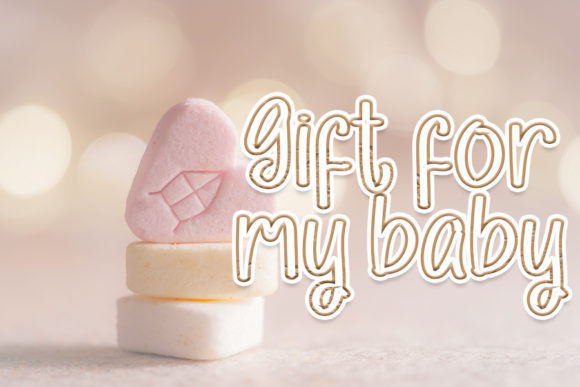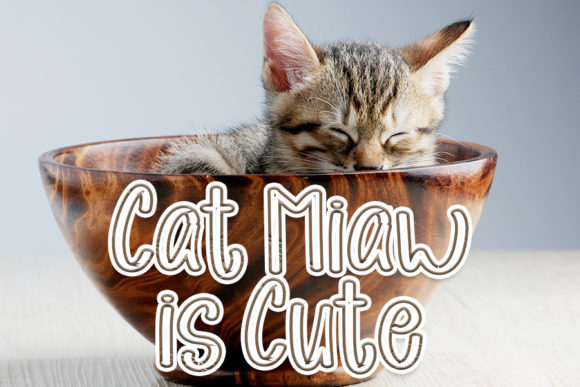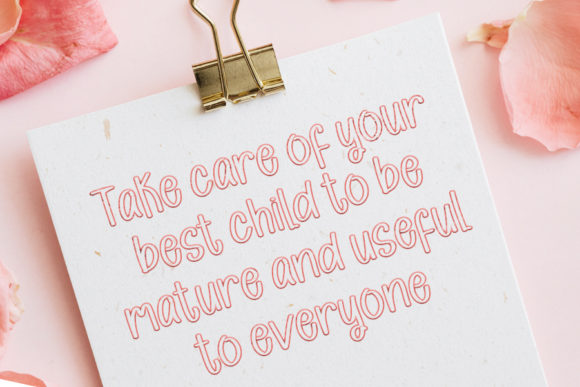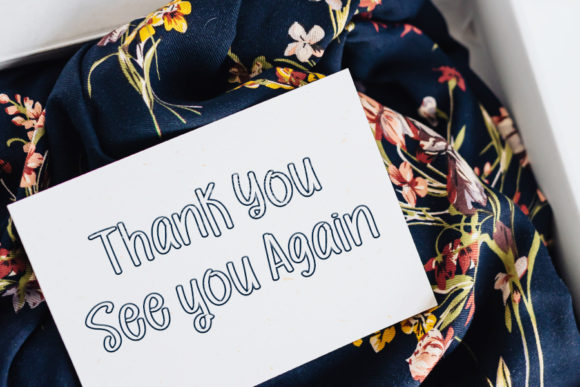
Introducing Happy Panda Font: The Perfect Blend of Whimsy and Relaxation
Are you a designer, crafter, or DIY enthusiast looking for a font that can add a touch of personality to your projects? Look no further than Happy Panda Font, a beautiful and relaxed handwritten font that’s perfect for a variety of designs. With its casual and whimsical vibe, Happy Panda is sure to bring your creative ideas to life!
The Characteristics of Happy Panda Font
Happy Panda Font is a unique and charming handwritten font that’s designed to evoke a sense of relaxation and playfulness. Its casual, laid-back style makes it perfect for projects that require a friendly and approachable tone. The font’s whimsical nature also makes it ideal for designs that need a touch of personality and flair.
One of the standout features of Happy Panda Font is its versatility. Whether you’re working on a DIY craft project, a branding campaign, or a social media graphic, this font is sure to fit right in. Its relaxed and informal style makes it perfect for designs that need to feel approachable and down-to-earth.
Uses for Happy Panda Font
• DIY Crafts: Add a personal touch to your DIY craft projects, such as handmade cards, gift tags, and scrapbook pages.
• Branding: Use Happy Panda Font to create a friendly and approachable brand identity for your business or product.
• Social Media Graphics: Add a touch of personality to your social media graphics, such as Instagram posts, Facebook headers, and Twitter graphics.
• Stationery: Create custom stationery, such as notebooks, journals, and stickers, with a personal and playful touch.
• Web Design: Use Happy Panda Font to add a touch of whimsy and personality to your website or blog.
Why Choose Happy Panda Font?
• Unique and Eye-Catching: Happy Panda Font is a one-of-a-kind font that’s sure to grab attention and stand out from the crowd.
• Easy to Read: Despite its playful nature, Happy Panda Font is easy to read and understand, making it perfect for designs that need to communicate a message.
• Versatile: Happy Panda Font can be used for a wide range of projects, from DIY crafts to web design.
• High-Quality: Happy Panda Font is a high-quality font that’s designed to look great in any context.
Tips for Using Happy Panda Font
• Use it with Color: Happy Panda Font looks great with bright, bold colors. Try pairing it with a fun and playful color scheme to really make your design pop.
• Experiment with Sizes: Happy Panda Font looks great in a variety of sizes. Experiment with different font sizes to find the one that works best for your design.
• Pair it with Other Fonts: Happy Panda Font pairs well with other fonts, such as sans-serif fonts and script fonts. Try pairing it with a contrasting font to create visual interest.
In conclusion, Happy Panda Font is a beautiful and relaxed handwritten font that’s perfect for designers, crafters, and DIY enthusiasts. With its casual and whimsical vibe, Happy Panda is sure to bring your creative ideas to life. Whether you’re working on a DIY craft project, a branding campaign, or a social media graphic, Happy Panda Font is a great choice. So why not give it a try and see the difference it can make?